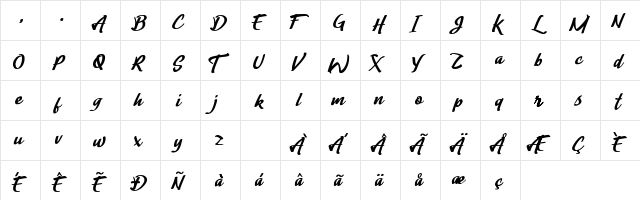
Lady Writer Regular
| Designer | Nico Muslib |
Design Context for Lady Writer Typeface
Lady Writer is a composed and adaptable typeface that performs quietly and consistently across a wide range of design contexts.